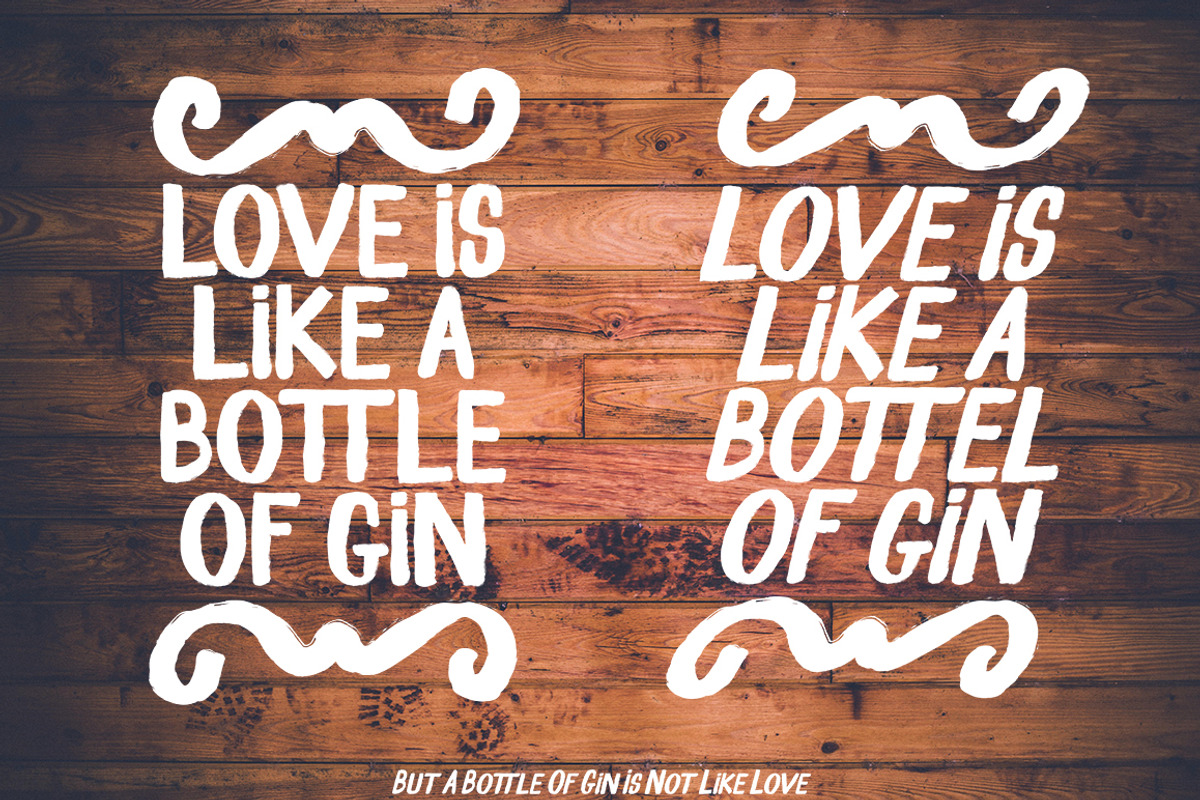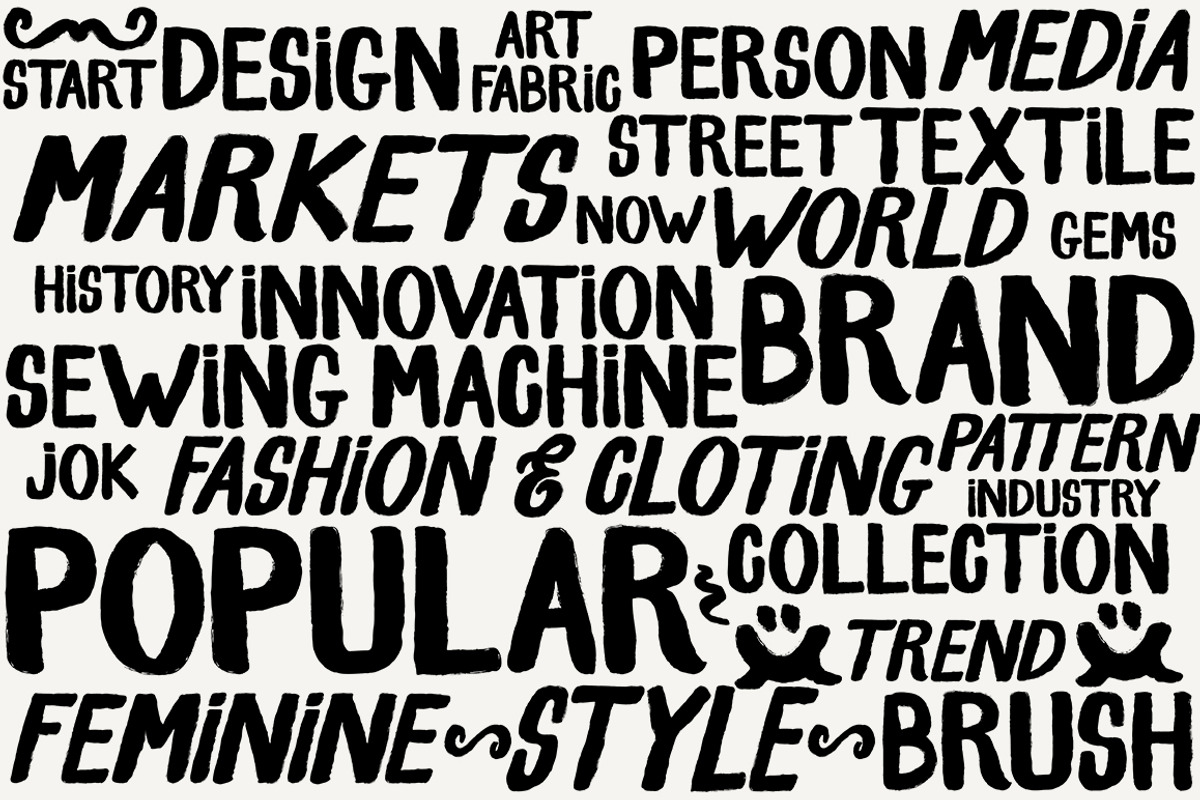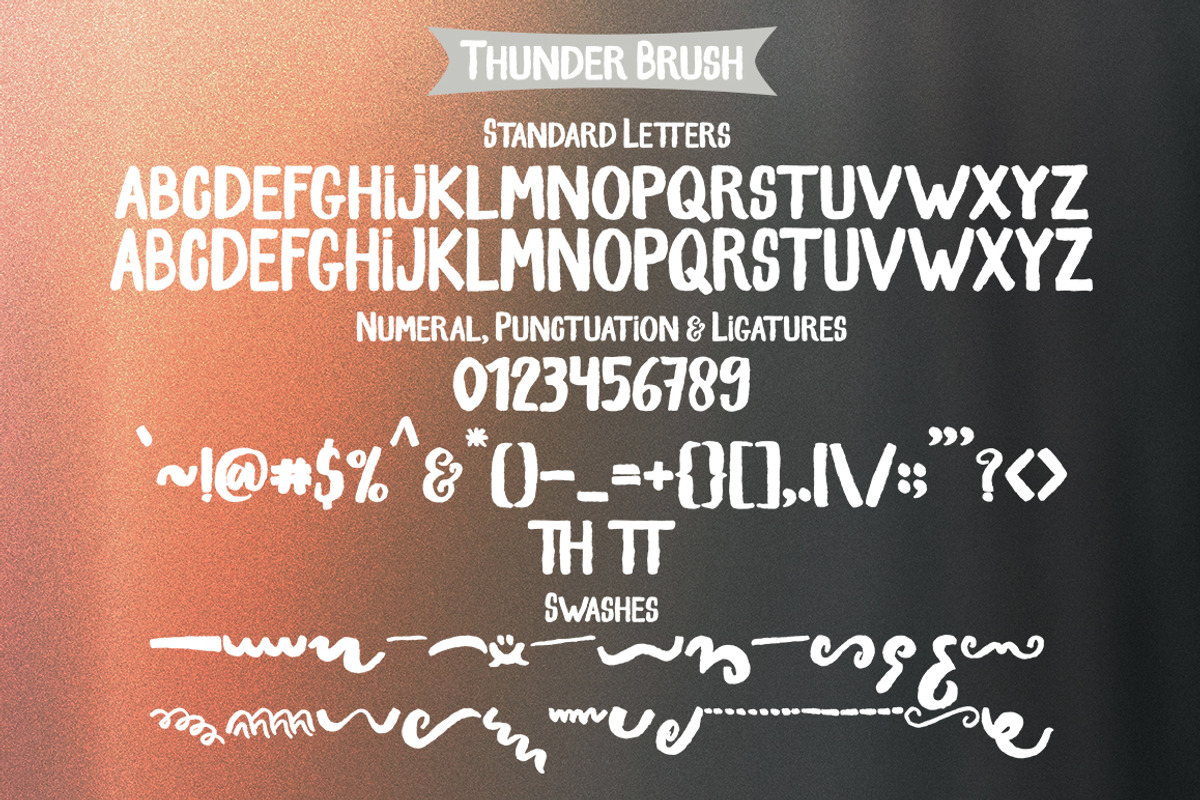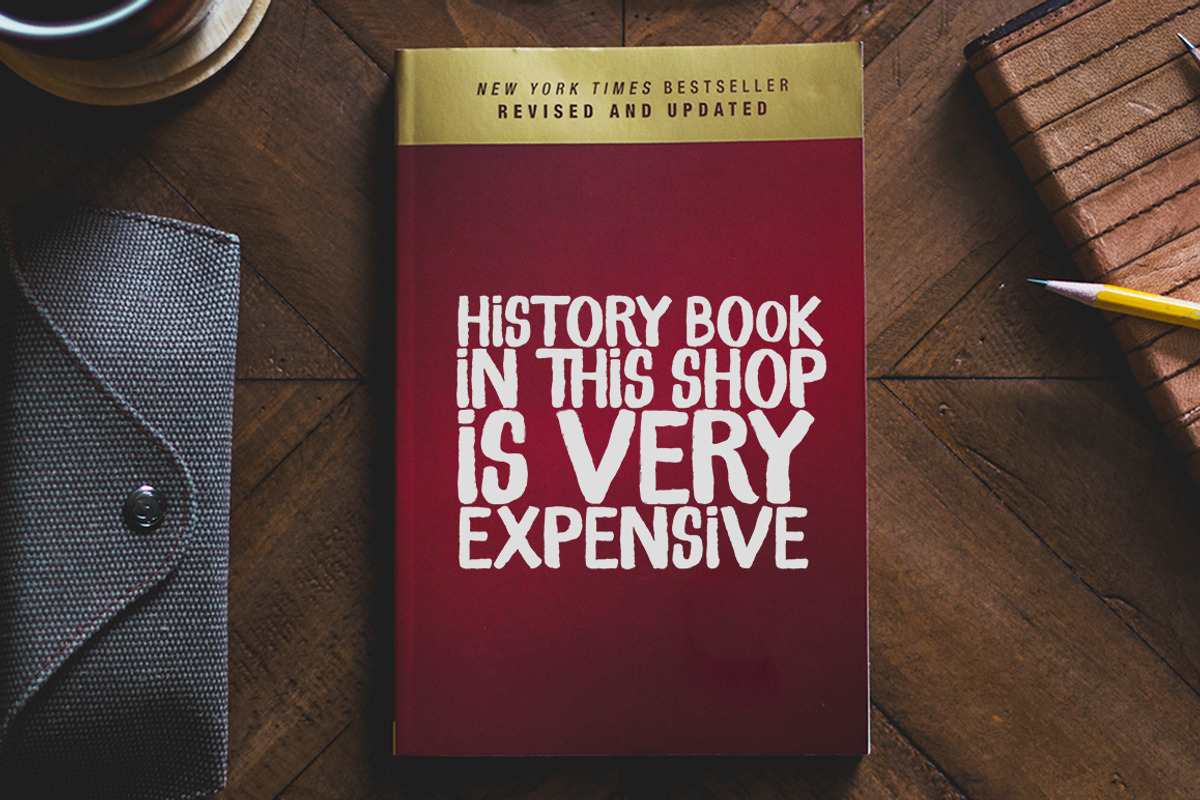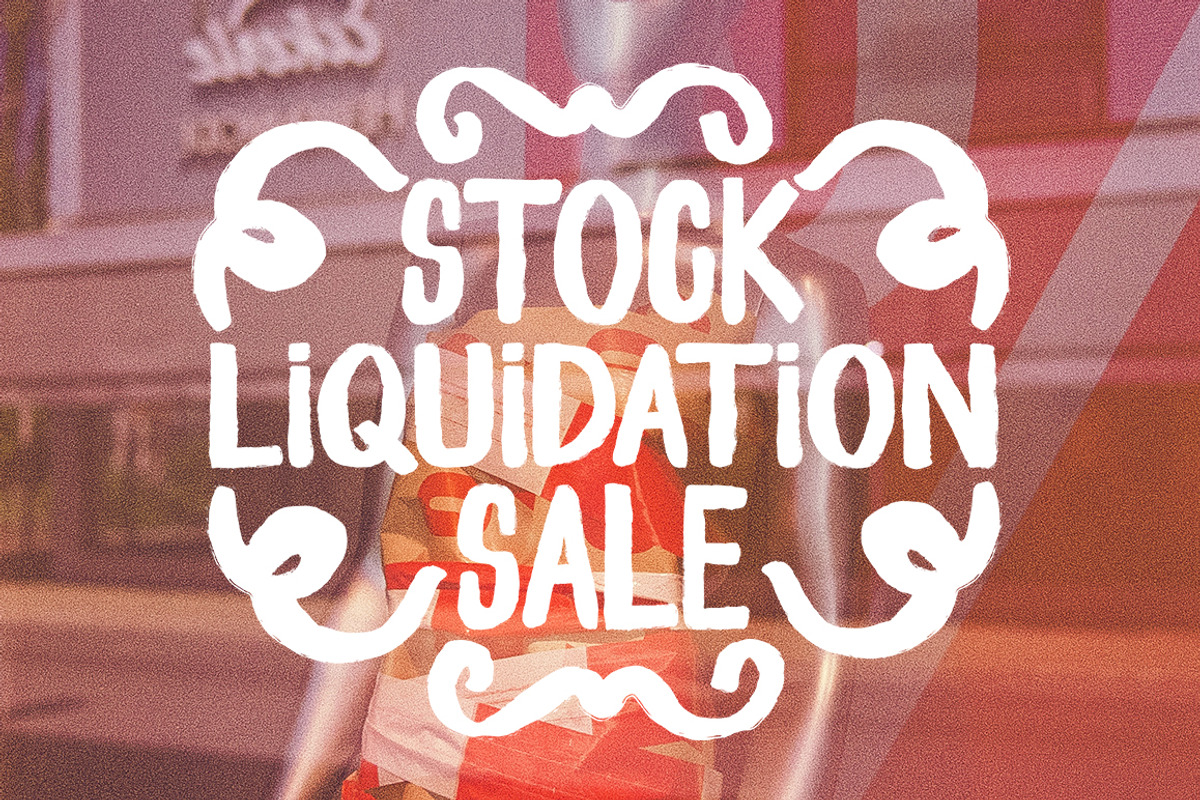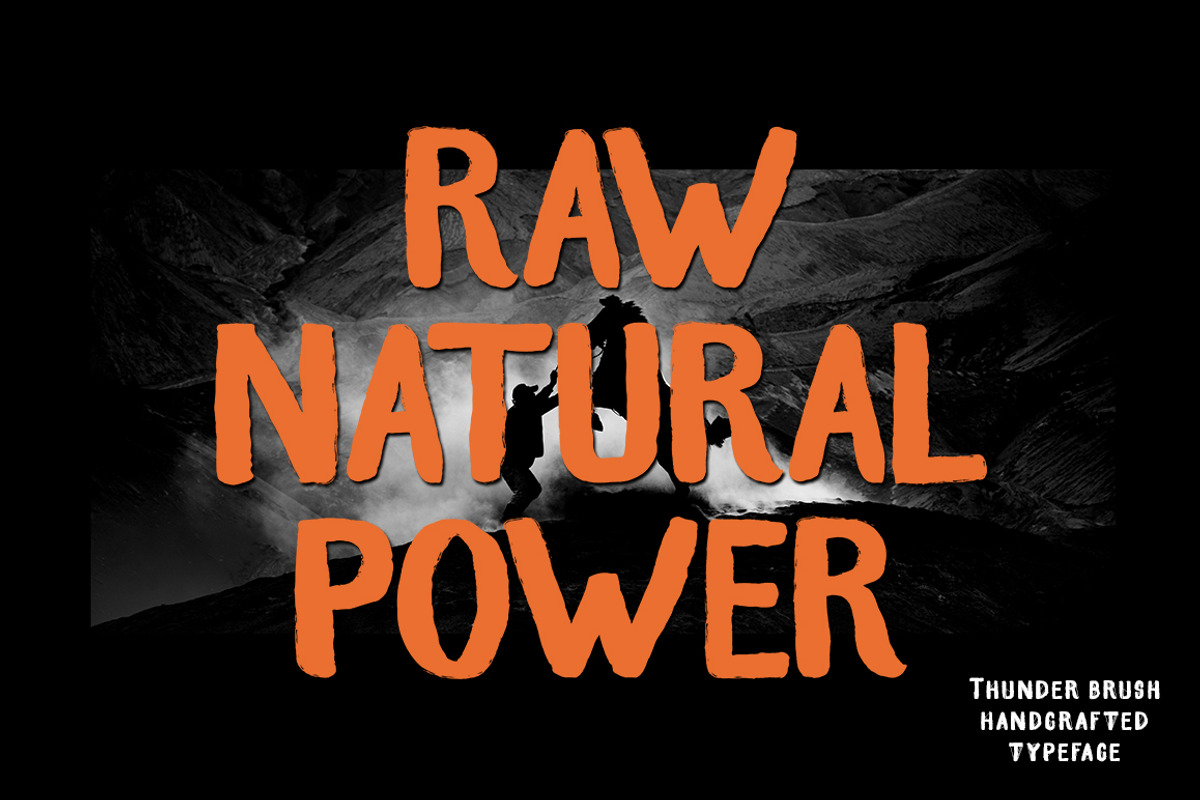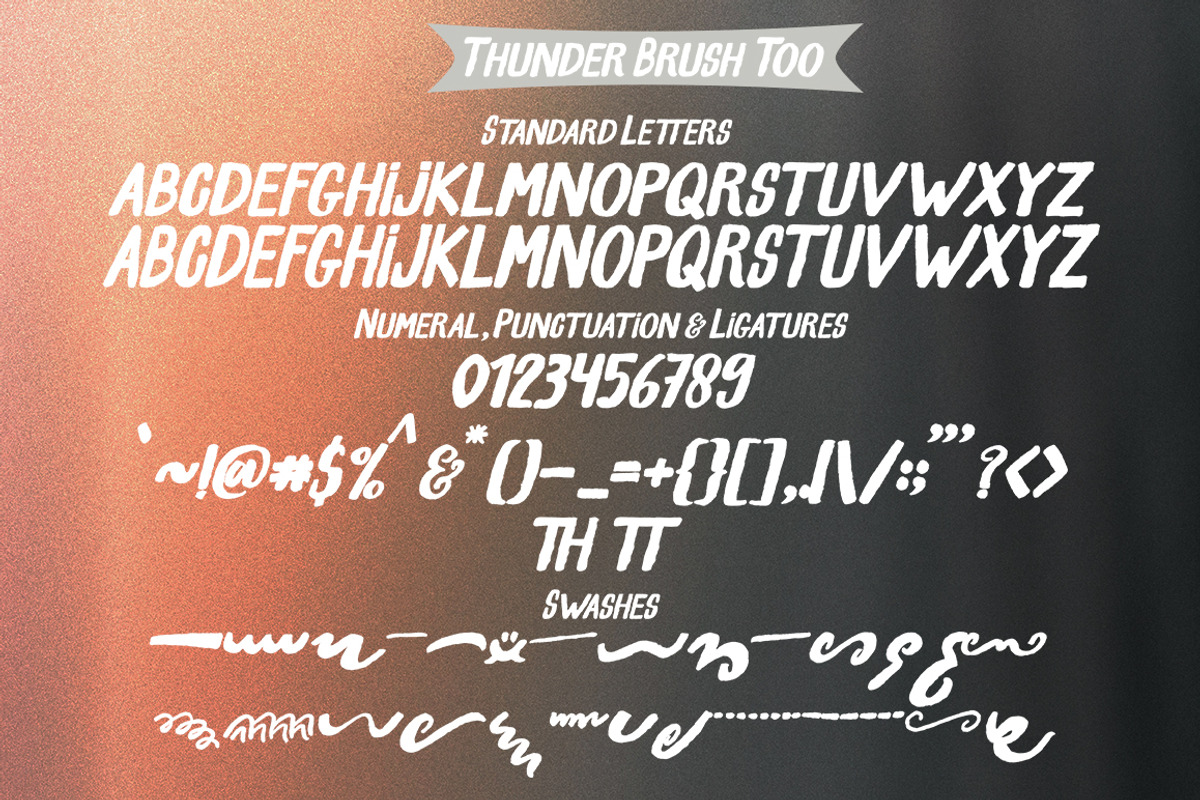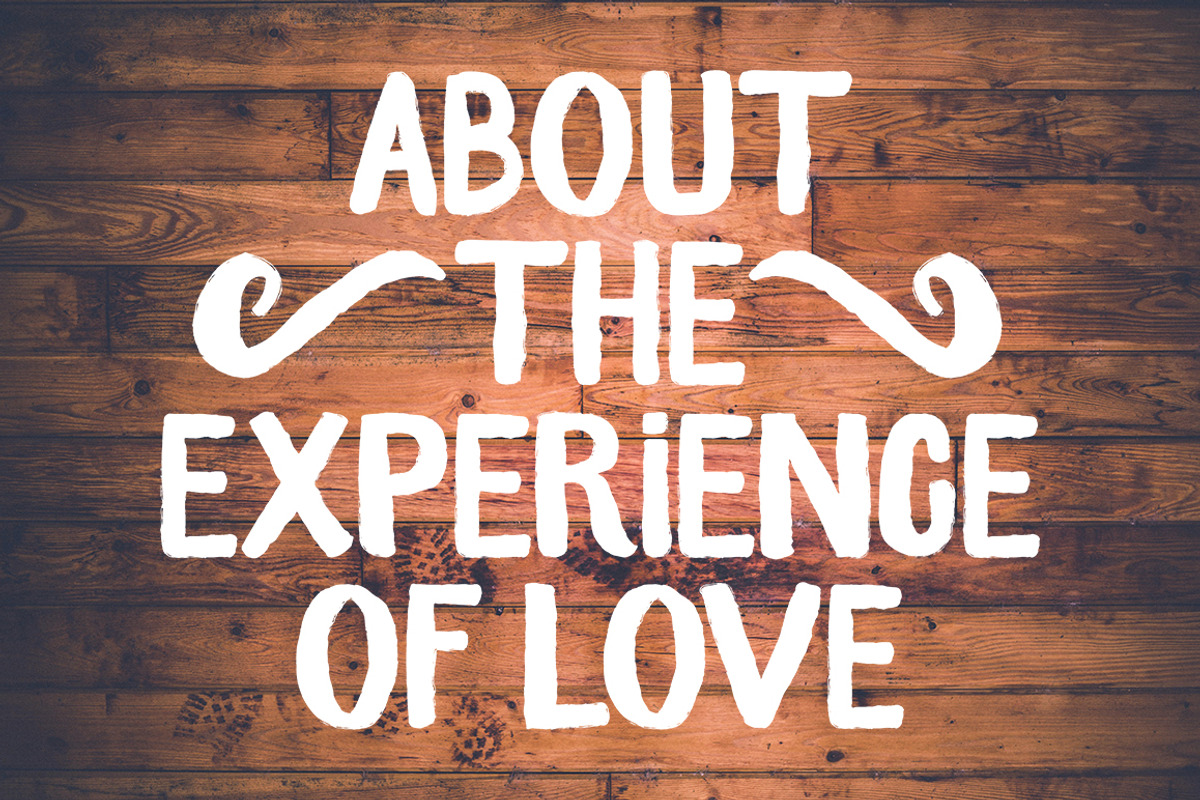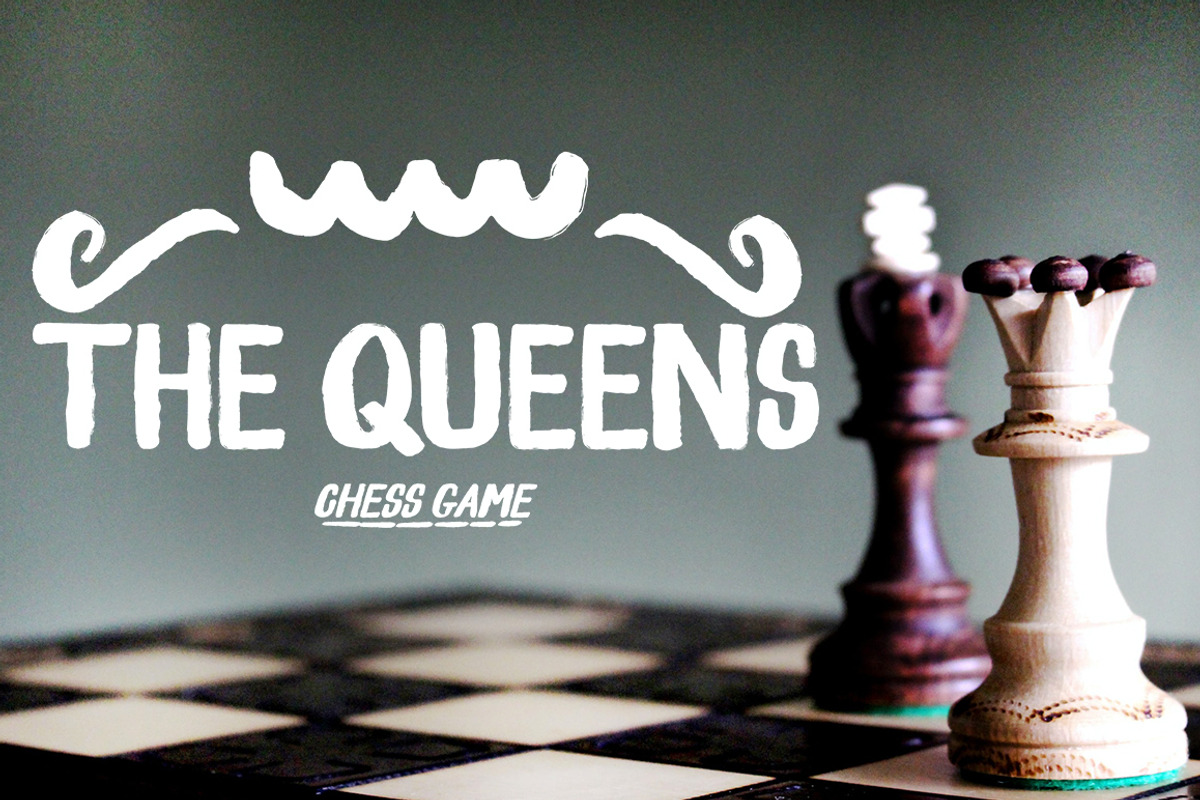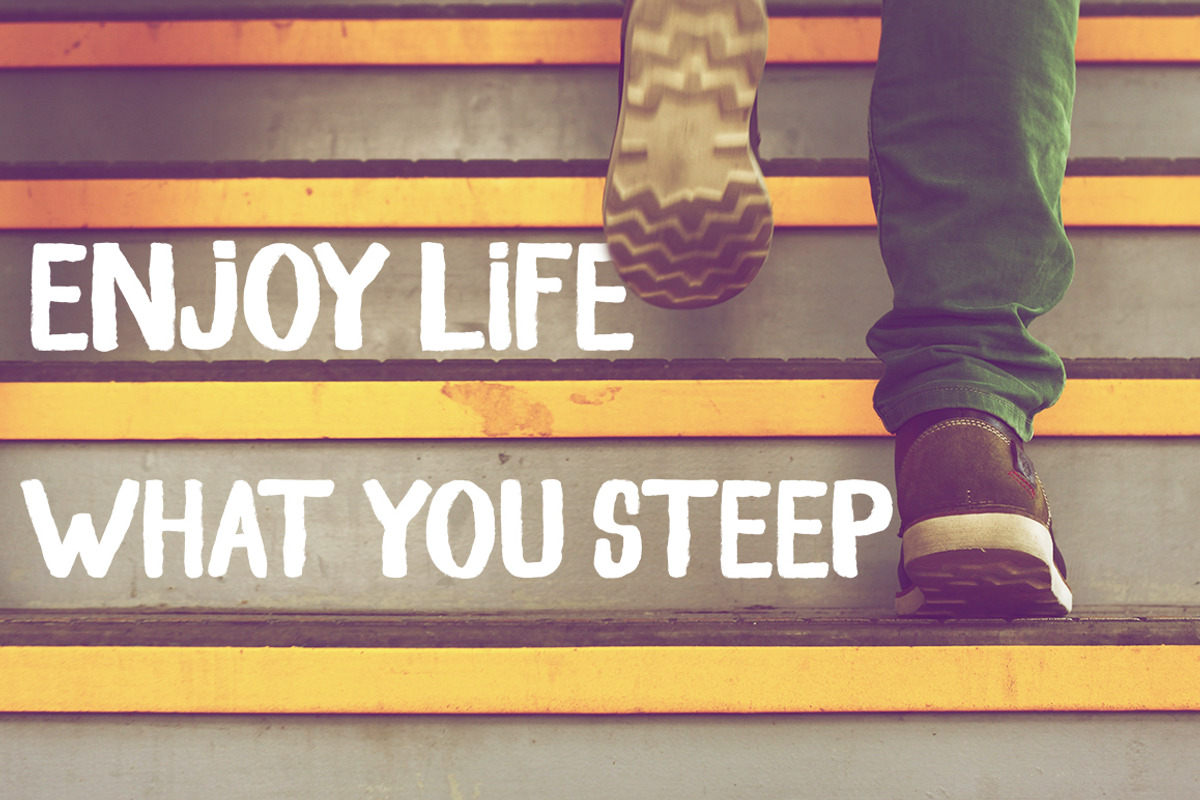
Thunder Brush
Thunder Brush is the cool hand-painted typeface you've been looking for. Quickly painted on paper and carefully translated into fonts, each letter and 2 for each number, plus variations for some punctuation. Fonts are well programmed to cycle through these alternate glyphs when the Contextual Alternate Application engine is turned on. Alternatively, you can always retrieve your selections manually via the glyph palette.
Thunder Brush is best suited for fashion, beauty products, food, clothing and magazines. Thunder Brush can also be used for film, television, marketing, advertising and websites.
Extremely versatile, the Thunder Brush is available in two cuts – upright and angled – and will suit many purposes perfectly.